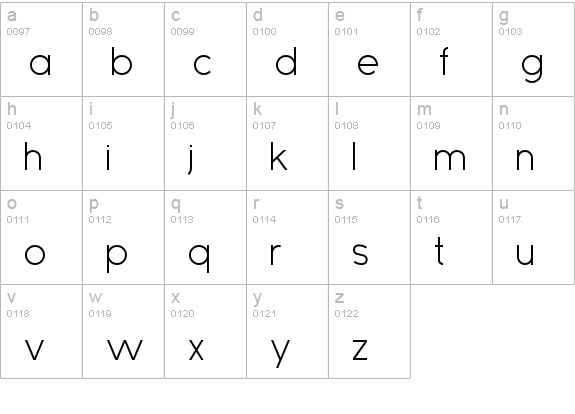
Sanseriffic Font Details
Sanseriffic font is a modern and versatile typeface that exudes elegance and sophistication. Its clean lines and minimalist design make it perfect for a wide range of projects, from branding and advertising to web design and print materials. The Sanseriffic font offers a timeless appeal that is both professional and stylish, making it a popular choice among designers and creatives. What sets Sanseriffic font apart is its versatility and readability, making it suitable for a variety of applications. Whether you're designing a sleek corporate identity or creating a striking poster, this font will ensure your message is communicated clearly and effectively. Best of all, Sanseriffic font is completely free to download at FontsMarket.com. This means you can access this high-quality typeface without any cost, making it a valuable addition to your font library. Don't miss out on the opportunity to elevate your designs with the timeless beauty of Sanseriffic font.